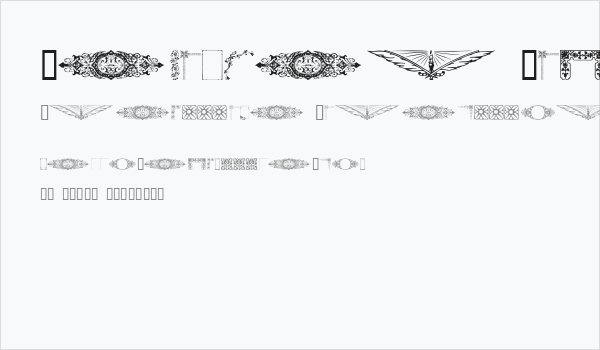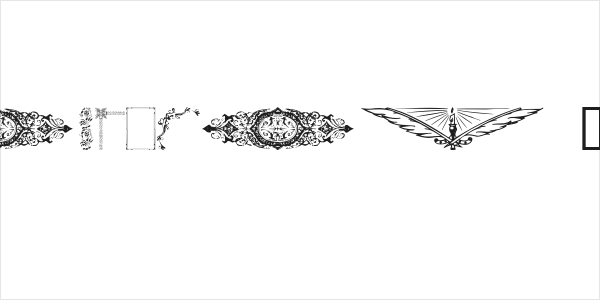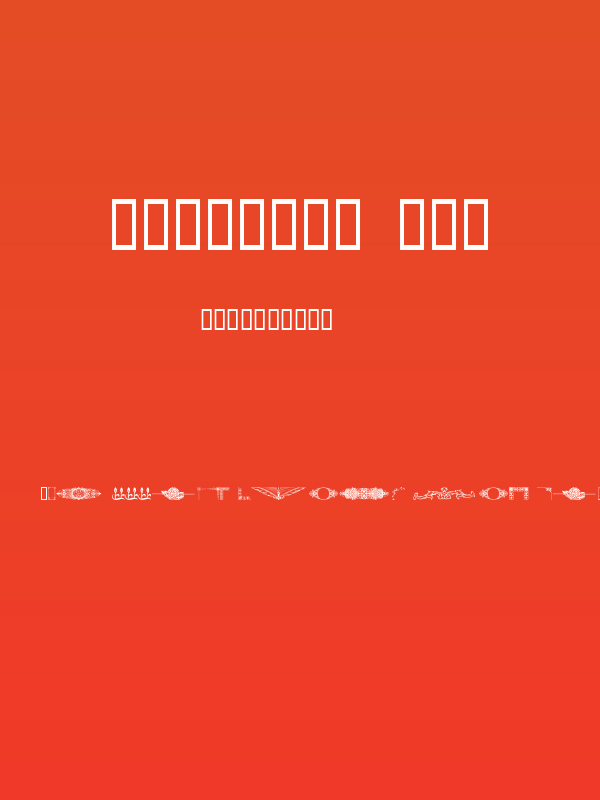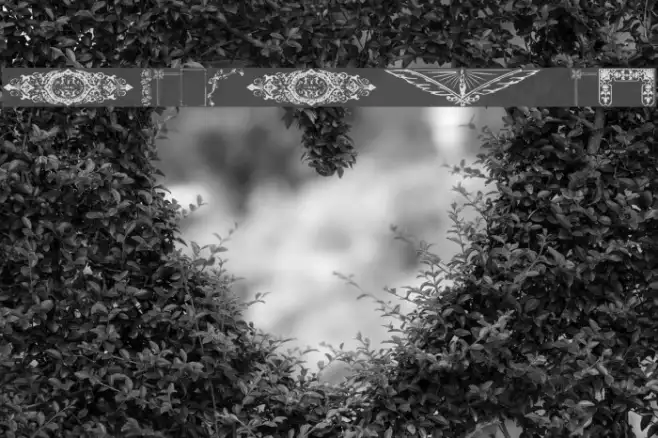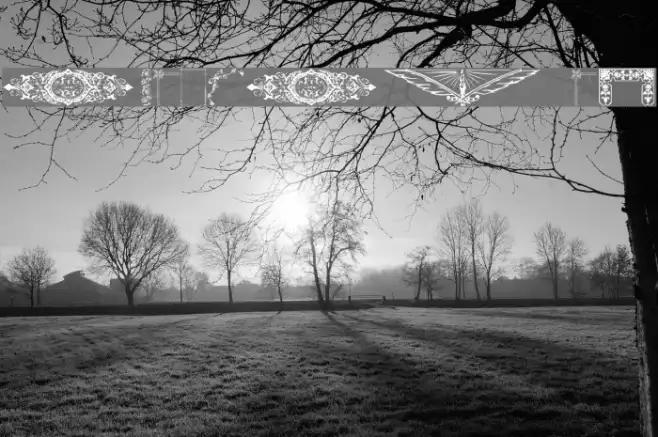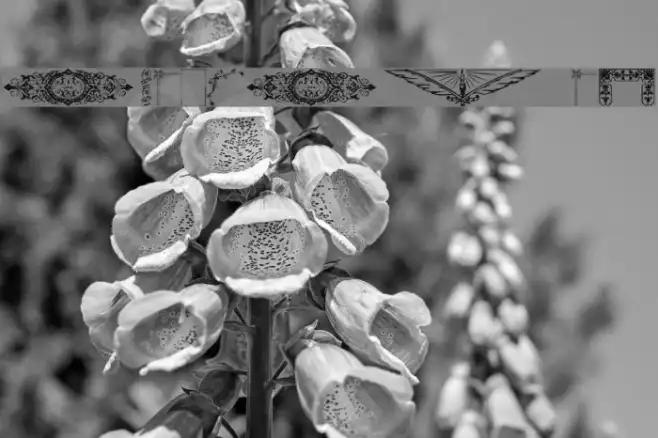
Designer Mix Font
Designer Mix Description
A decorative and eclectic collection of ornate, vintage-inspired glyphs and flourishes, featuring intricate patterns and embellishments reminiscent of antique design elements. The characters are highly stylized, with a mix of ornamental motifs and detailed linework.
| Overall Style | Vintage, Decorative |
| Use Case | Logos, Invitations, Decorative accents |
| Proposed Projects | Wedding invitations, certificates, vintage posters, decorative borders, branding for luxury or boutique products. |